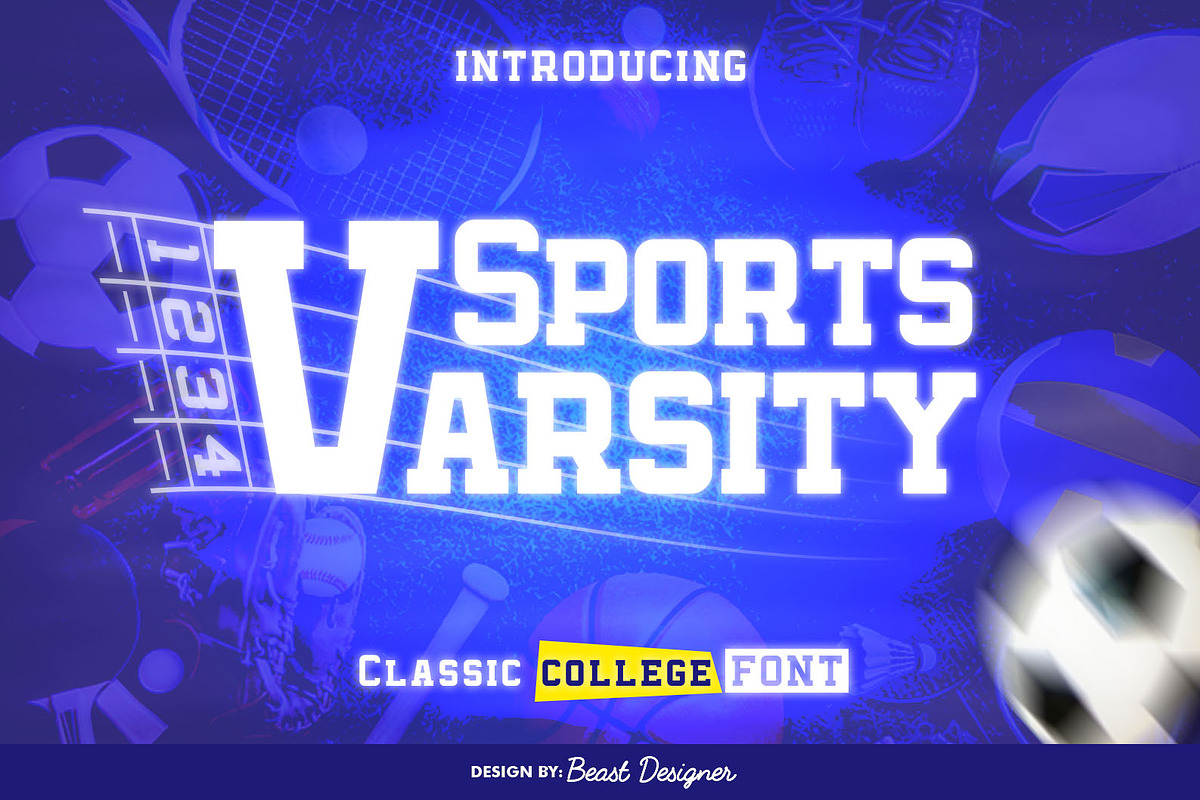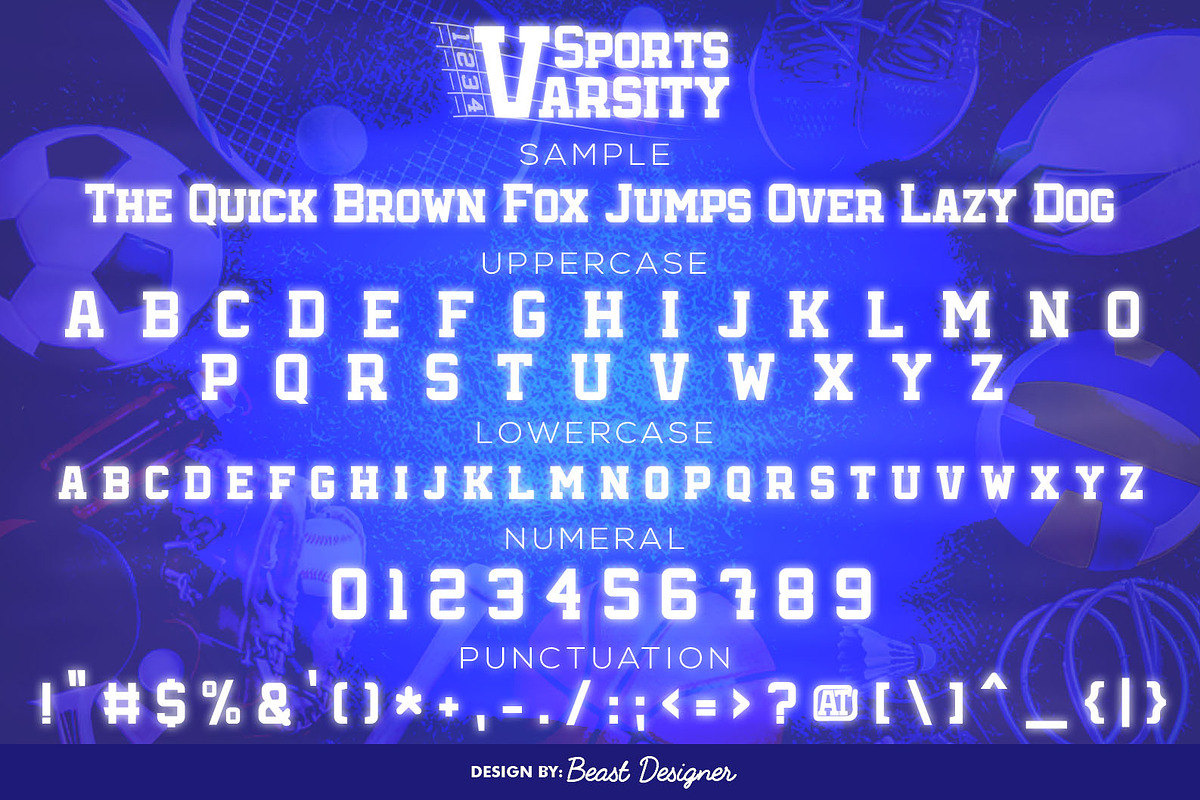
Sports Varsity
The Sports Varsity font is a robust and attention-grabbing typeface designed to capture the essence of classic sports typography. Its defining characteristic is its bold, blocky slab serif structure, featuring strong uppercase letters with sharp edges and impactful strokes. While the lowercase letters maintain a similar boldness, they are often slightly smaller in size for visual balance. This font's design exudes energy and competitiveness, making it ideal for sports-related projects such as team logos, posters, jerseys, and other athletic graphics. The vintage aesthetic further enhances its appeal, evoking nostalgia for classic sports branding.